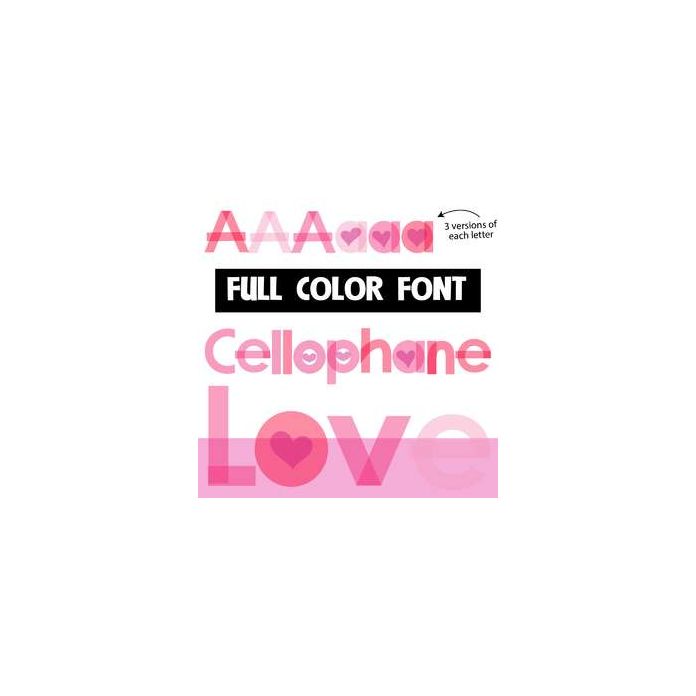
This full-color font features letters made with transparent shapes and hearts. There is three versions of each letter you can access through your system's character map. This font works best for titles, displays, posters and more. Please note color fonts will show as black in non compatible programs. This font type is compatible with Silhouette Studio